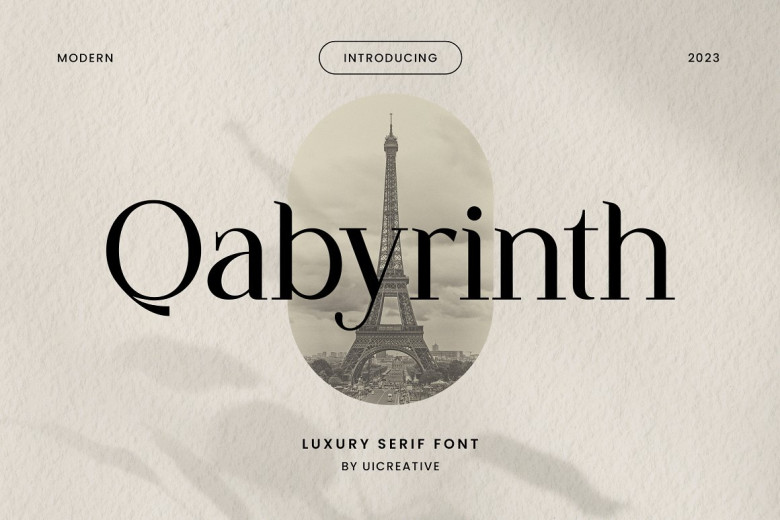
Qabyrinth Font
Our latest product is a luxurious font called Qabyrinth Font. This serif typeface looks beautiful and modern. You can use it in all kinds of projects where you want the font to have a contemporary yet traditional feel, from hand-lettered magazine titles for reproduction type samples to large scale headlines like newspaper mastheads, website headlines or book covers.
Here are some examples: Elegant calligraphy with commentary in parenthesis includedacross the page instead of down the margins, short story first paragraph introductionsas a drop capthe numbersare meticulously measuredadhered to such subtle adjustments as heightand width-perhaps even colouring them darkest shade of blackso they won’t distract but only enhance your reading experience!
Qabyrinth Serif Font